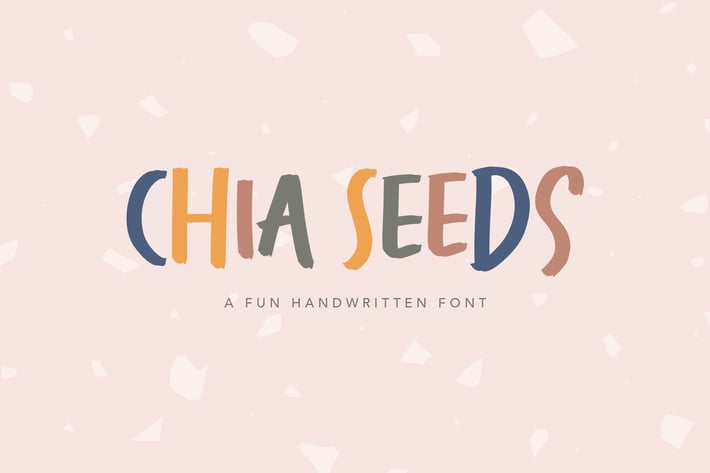
Chia Seeds Fun Handwritten Font
Chia Seeds is a fun textured, bold, and playful font type, it's a perfect fit for a quote, travel theme, food and nature theme - or a stylish text overlay to any background image. It's also could be good for both fun and kids-themed text.
+ Font type with fun, playful, and bold character.
+ All Caps Letters
+ Numbering and Punctuation